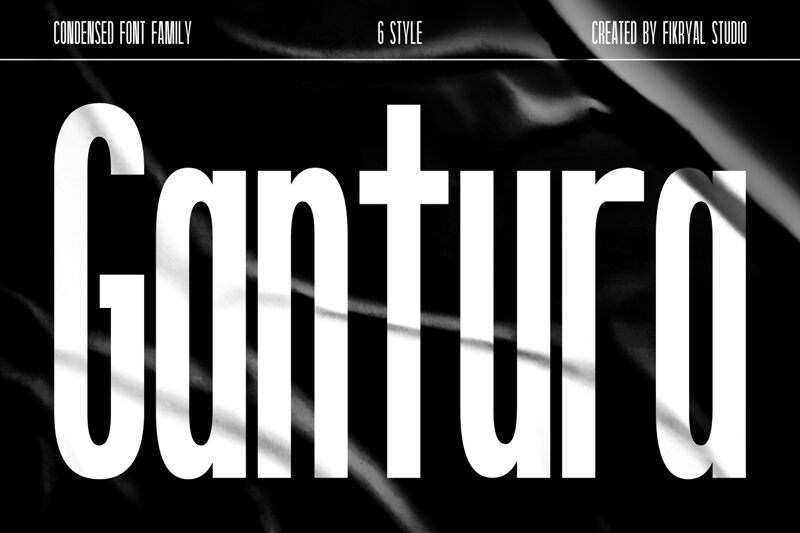
Gantura font family is a sleek professional sans serif font family that includes 6 font styles. Created by Fikryal studio, it caters to your voice no matter what you choose to say. Again, the font is supposed to give an assertive voice but it also balances in a minimalist manner since there’s a simple aesthetic to it.
Because it can share compelling presentations without aggressive designs, you can easily use it for different professional platforms including branding projects like websites and apps. Use it for logos or feature designers with its alternative characters and numerous features, or create posters and ads for well-known brands and businesses.
However, if you prefer a more general outlook, you can also use Gantura for posters for mags and online platforms or go for something that everyone can enjoy by including the headlines and cover pages of newspapers, articles, and magazines. Its regular characters and dashing alternates were inspired by calligraphy art, so you can share a uniquely pleasant experience every time you use it.